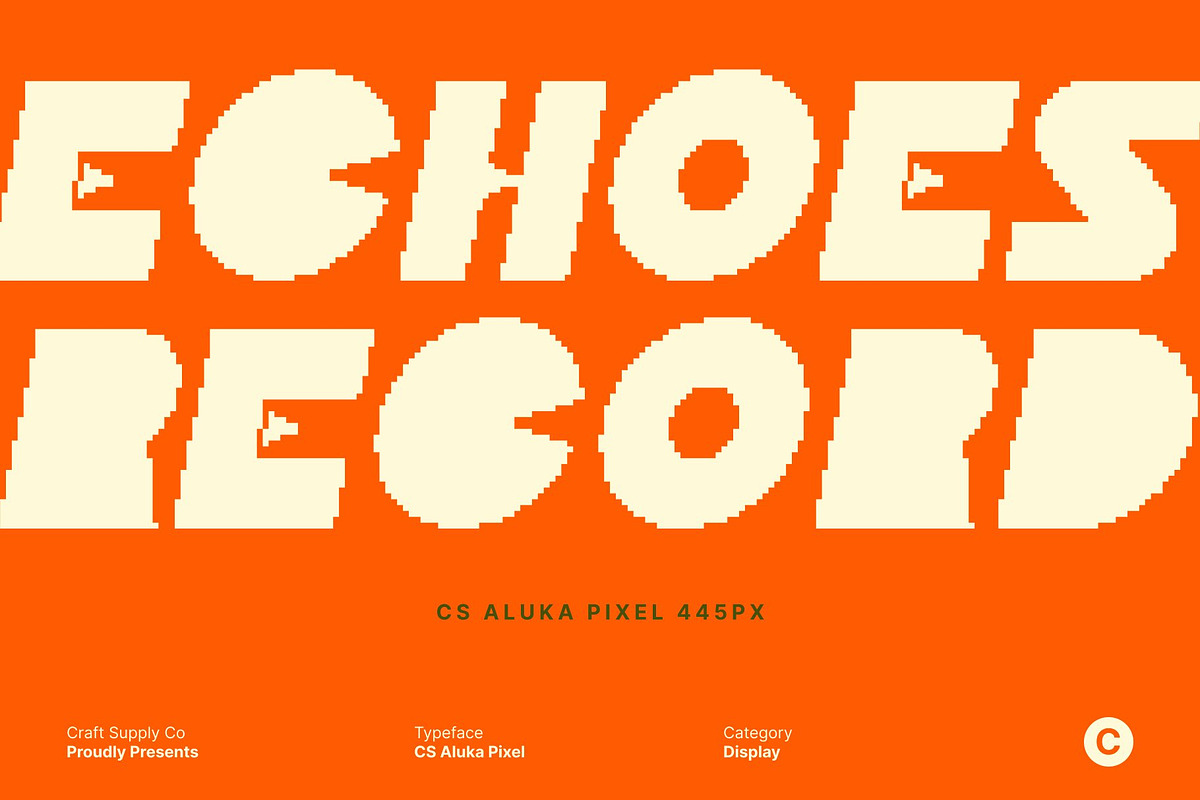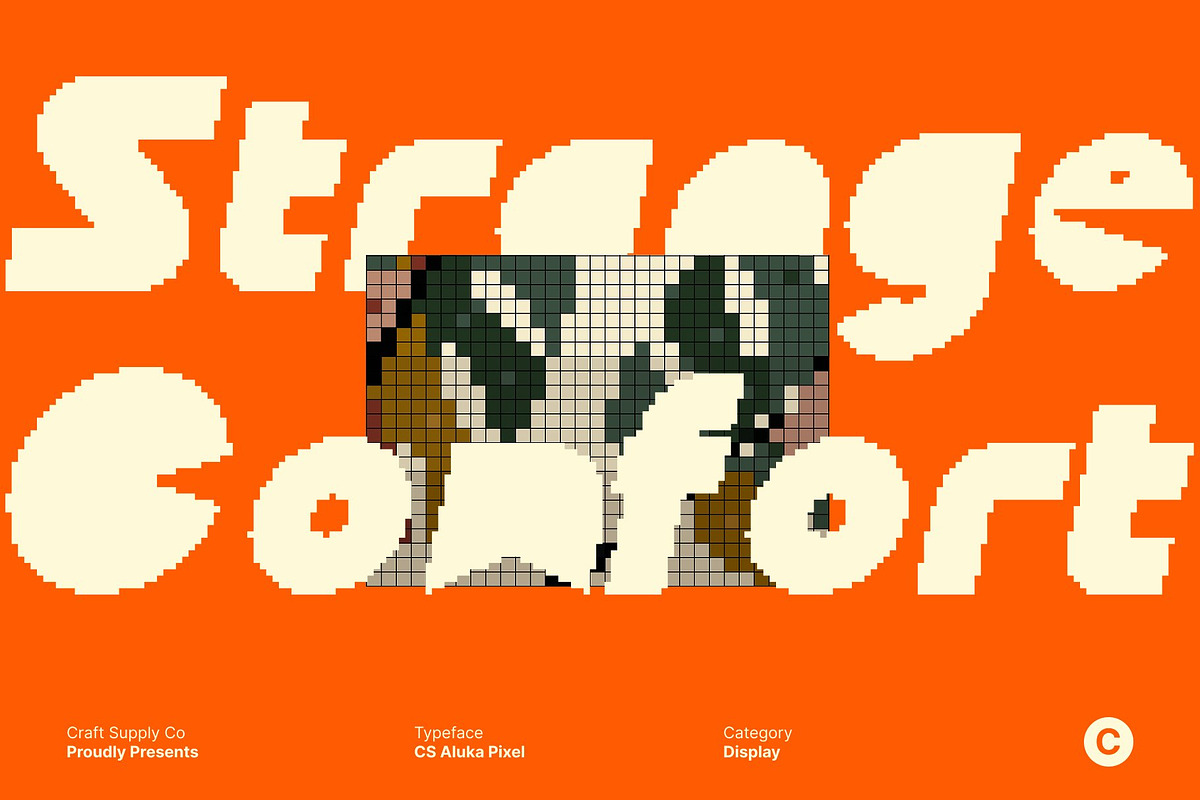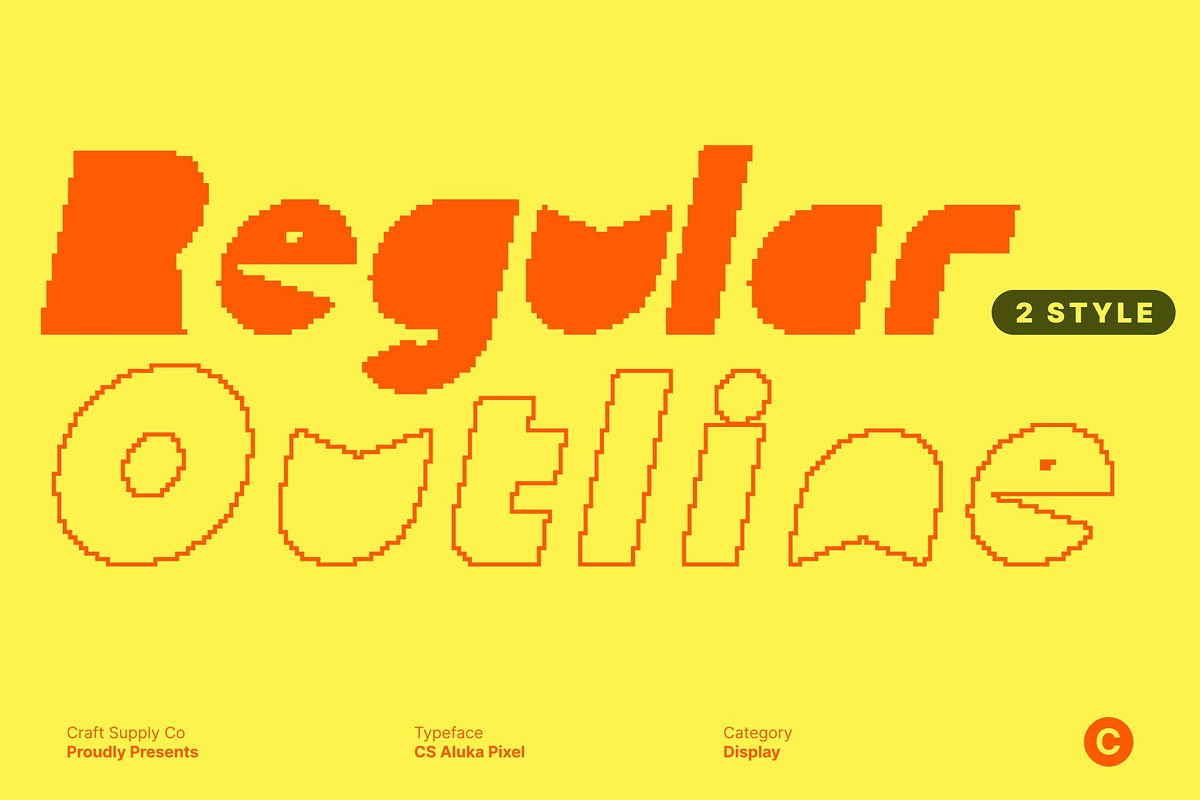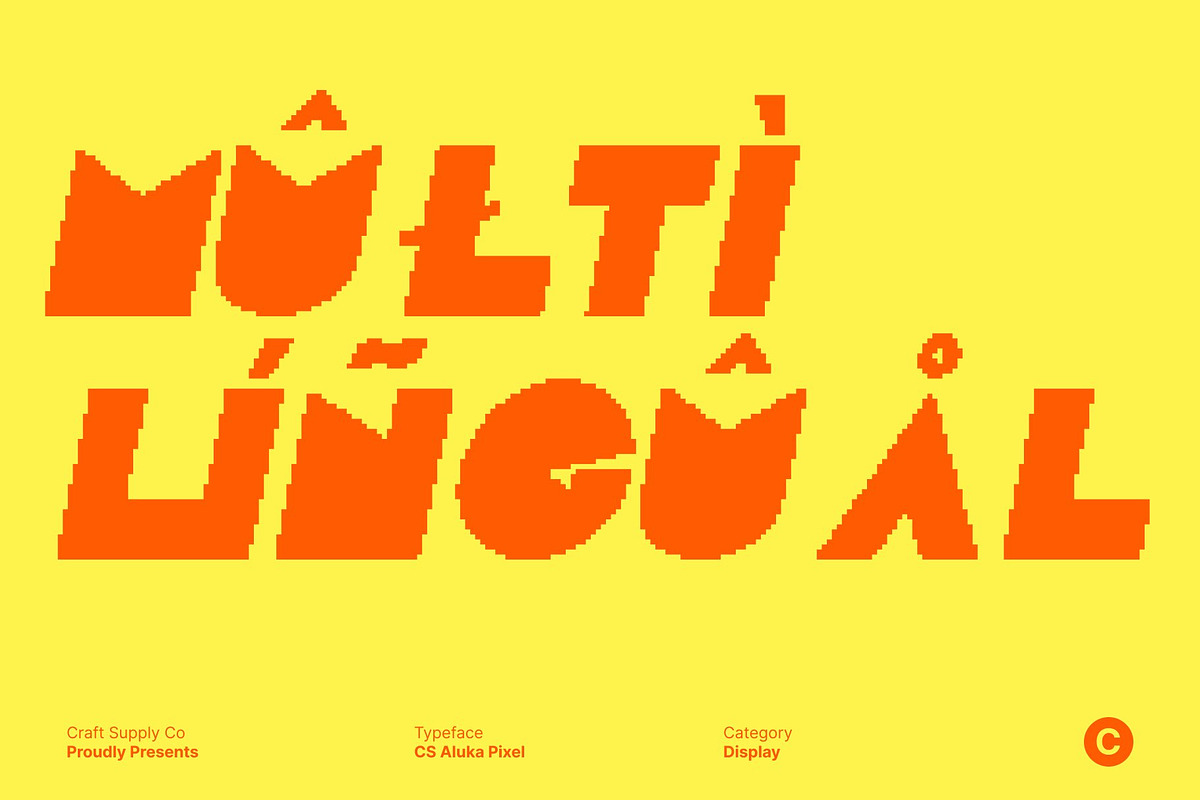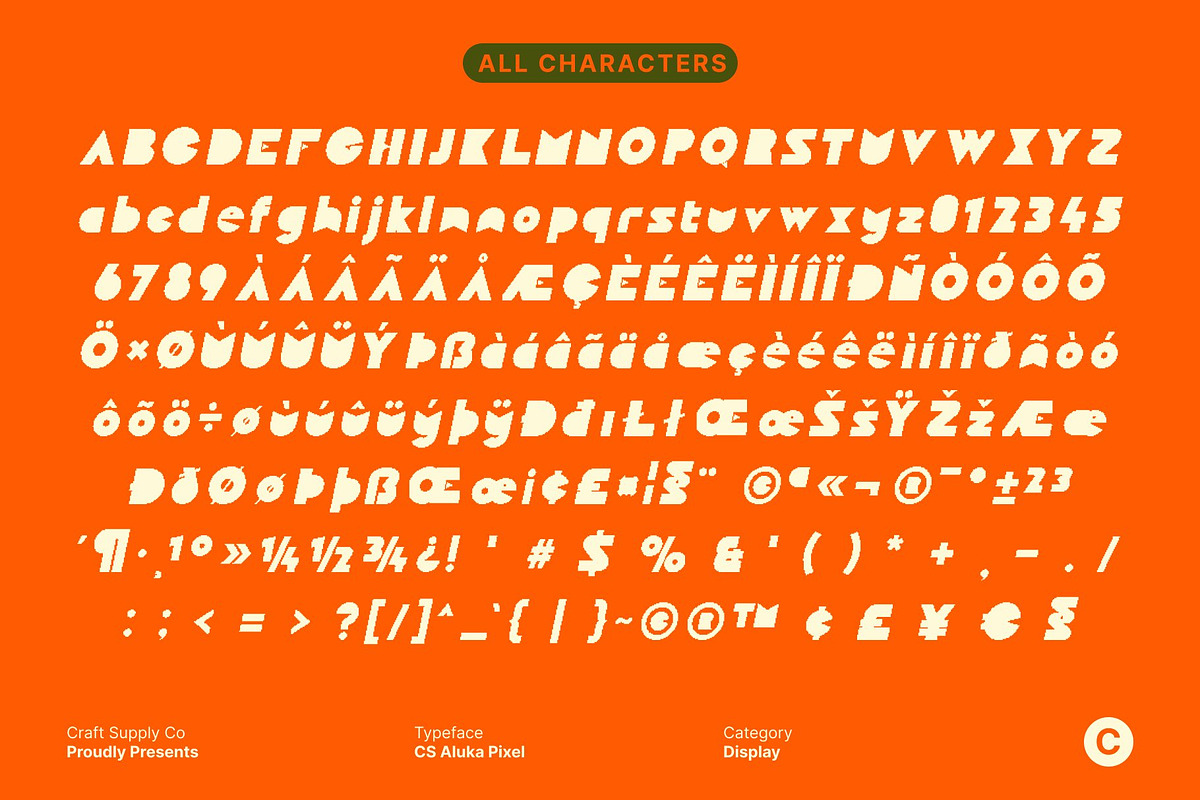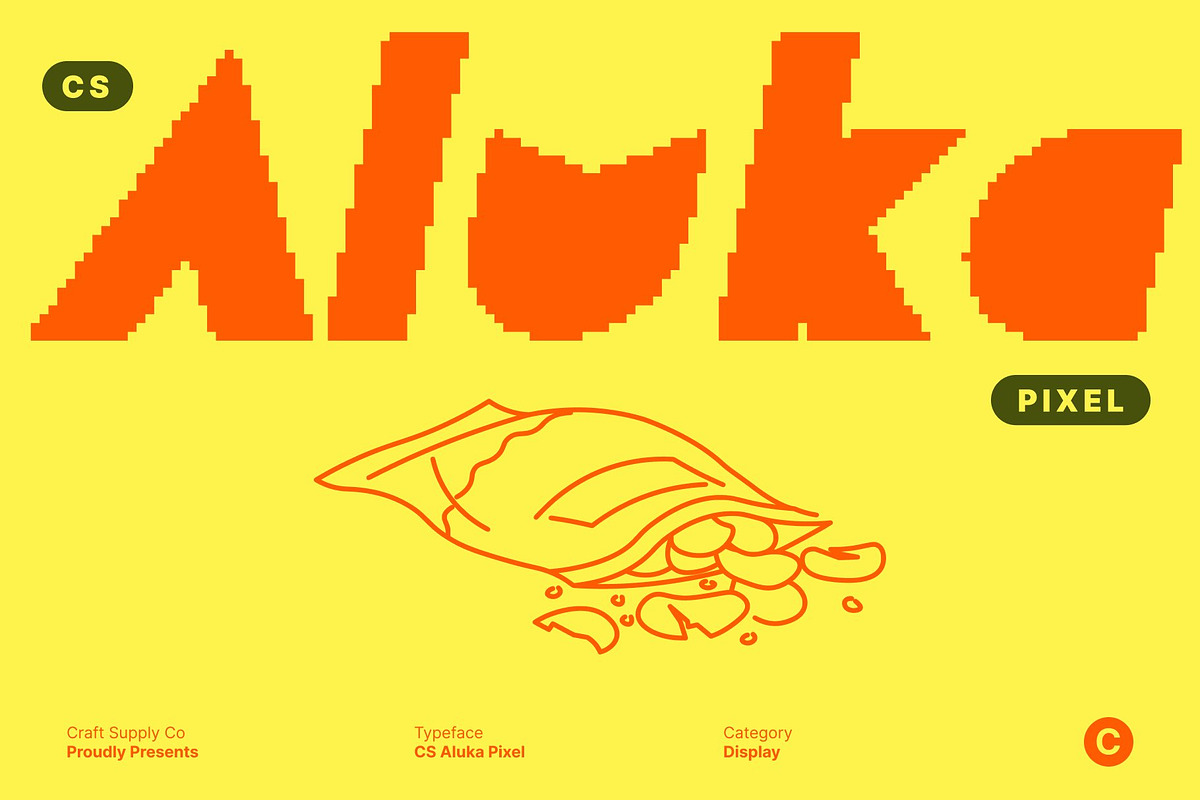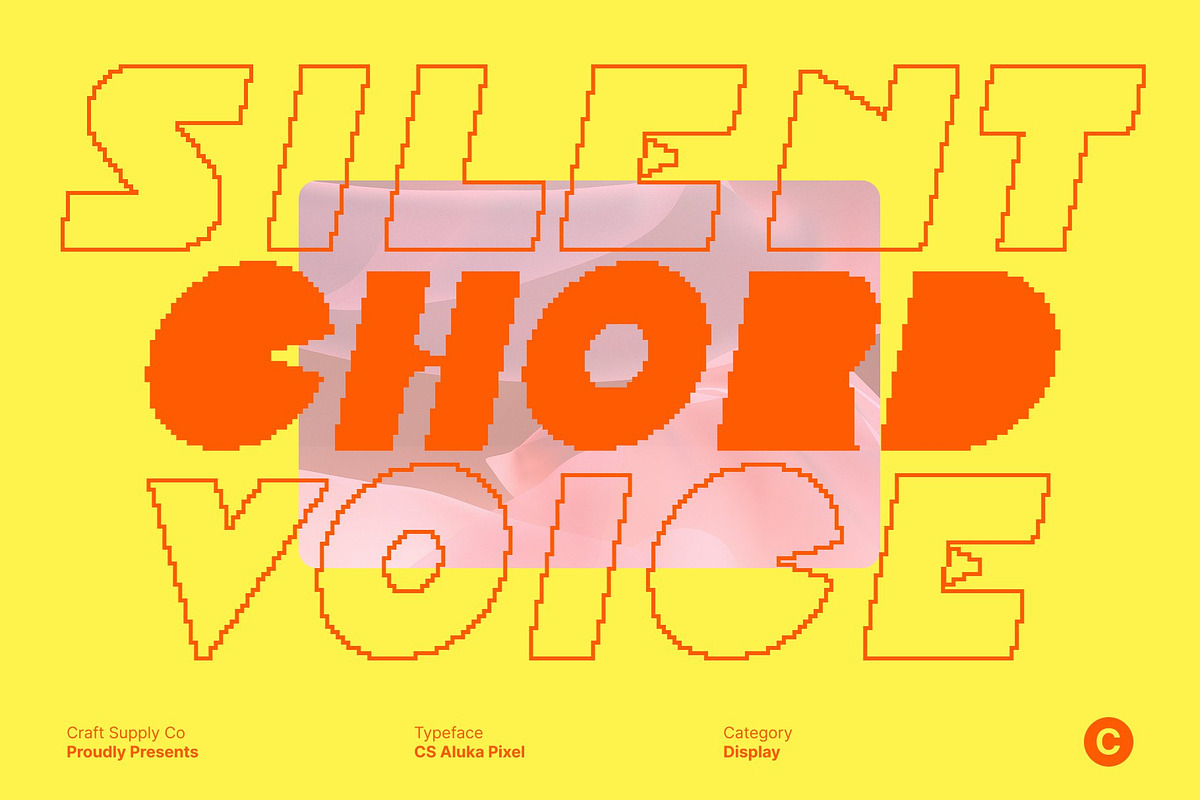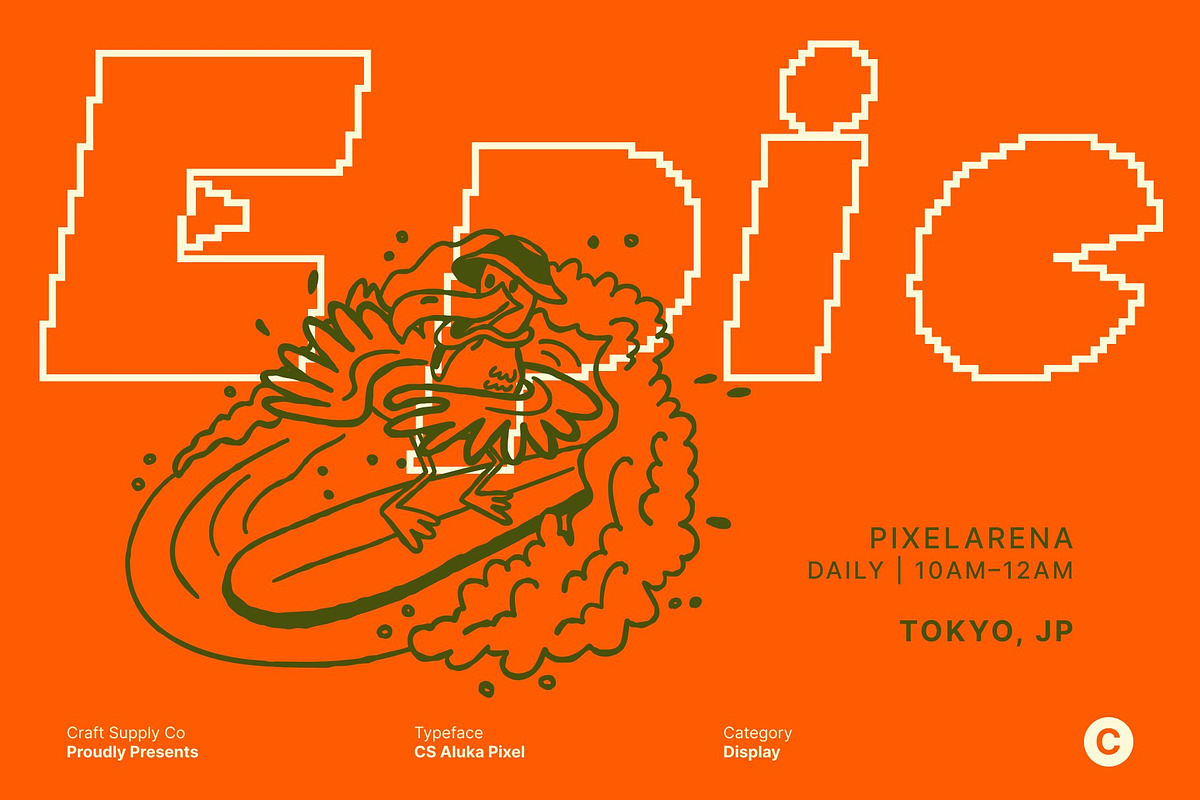
CS Aluka Pixel
CS Aluka Pixel – Retro Arcade Display Font with Playful Energy
Bold Display Font Inspired by Classic Arcade Games This is a bold display font inspired by the iconic visual language of classic arcade games, especially the playful spirit of Pac-Man. Its strong presence and eye-catching forms instantly bring a sense of fun, nostalgia, and digital excitement to any design.
Distinctive Geometric Shapes with Pixel Precision Built from unique geometric constructions, each character feels lively and unconventional. The sharp angles and blocky proportions are carefully balanced to create a font that looks bold yet playful. Its pixel-based structure reinforces a digital rhythm, making every letter feel intentionally crafted and visually engaging.
8-Bit Retro Style with Modern Appeal The pixel style gives this font a clear 8-bit retro aesthetic, evoking memories of classic video games and early digital graphics. At the same time, its clean construction and bold weight allow it to work beautifully in modern design contexts, blending nostalgic charm with contemporary clarity.
Perfect for Games, Playful Branding, and Digital Designs This font is ideal for game titles, playful branding, posters, stickers, kids’ designs, and digital visuals. Its fun personality and retro arcade vibe make it a strong choice for projects that aim to feel energetic, joyful, and memorable. Whether for screens or print, this font brings pixel-powered character and fun-driven impact to your designs.